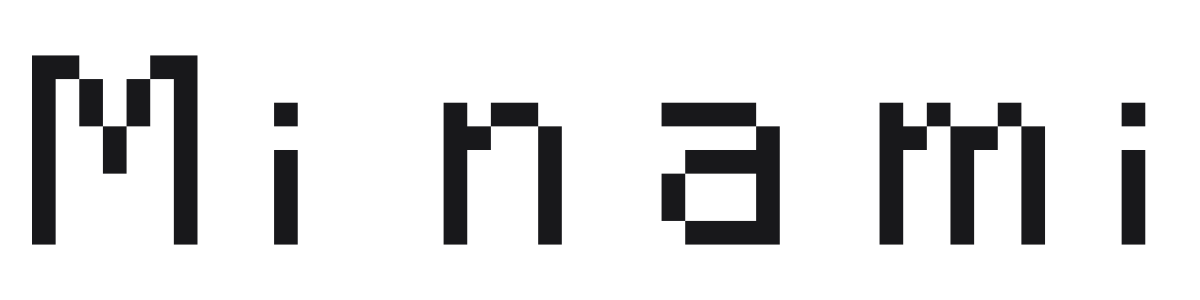
Minami
Minami is a compact bitmap font built on a pixel grid with the warmth of early handheld LCD screens. The characters have a soft, rounded quality despite their blocky construction, sitting somewhere between utilitarian and charming. It carries clear 8-bit nostalgia without feeling like a parody of it.